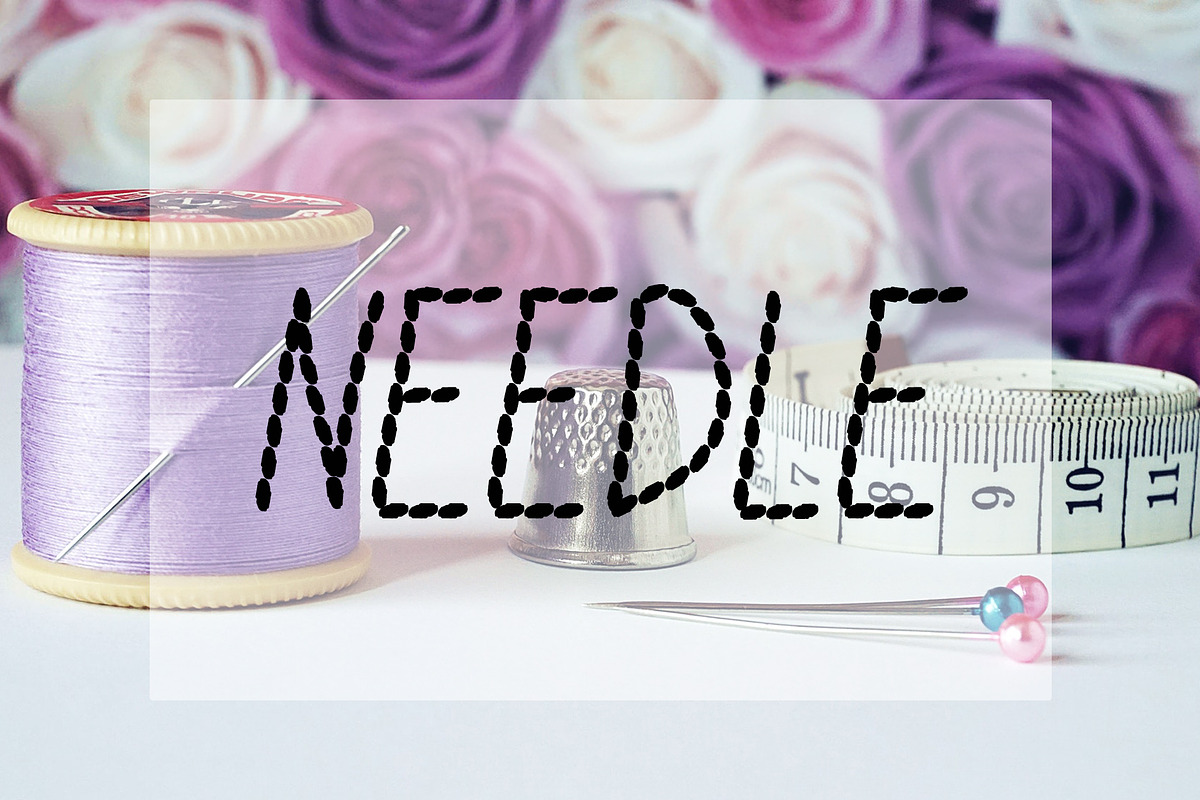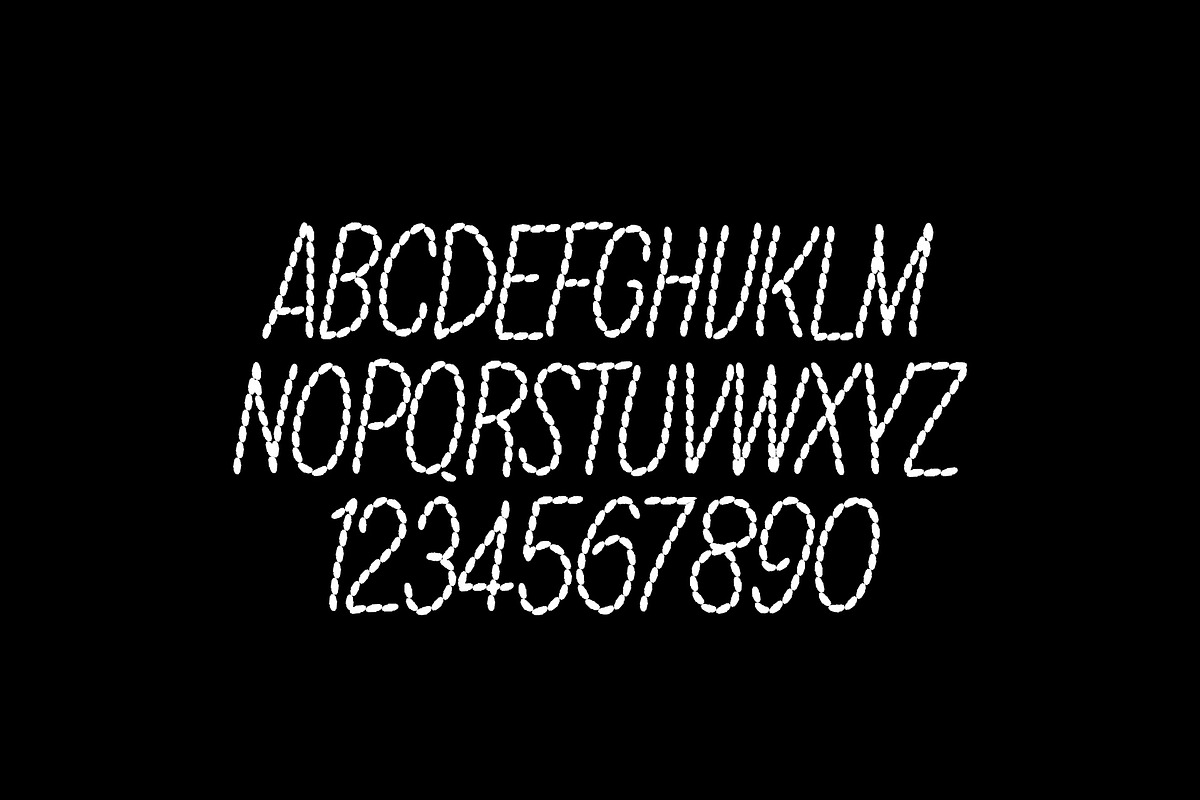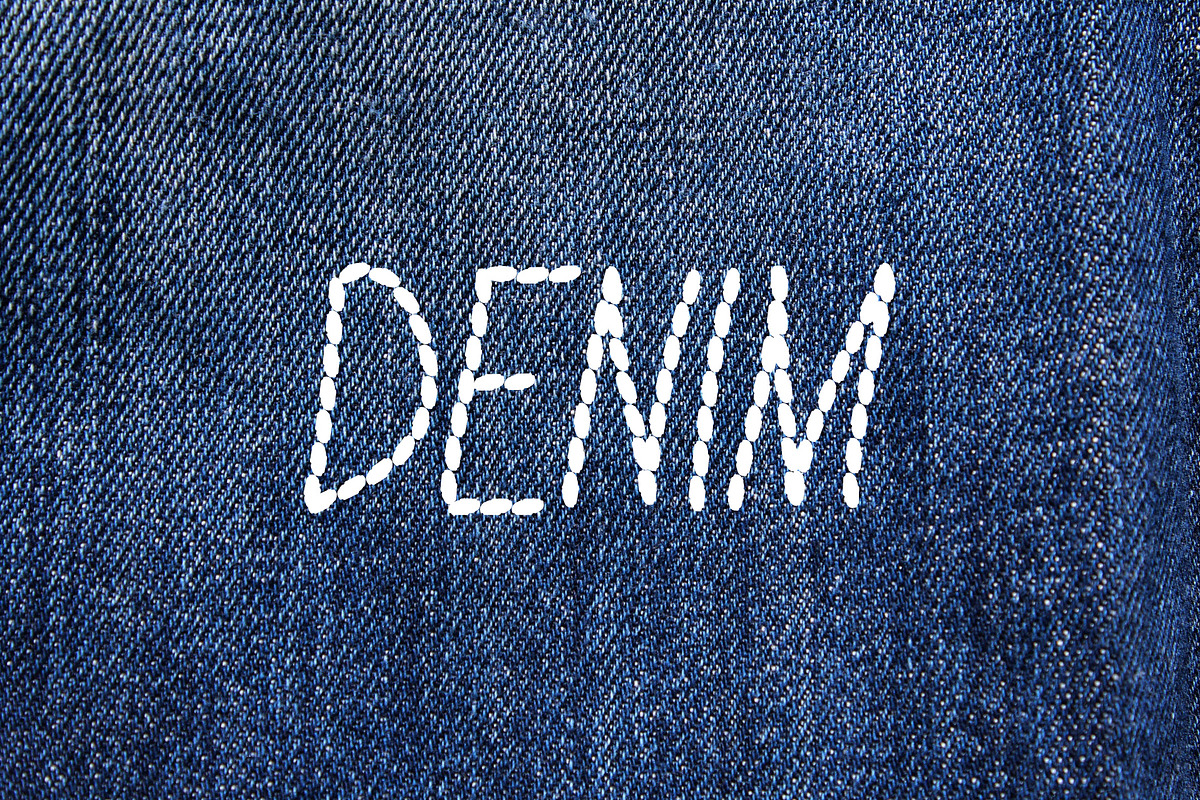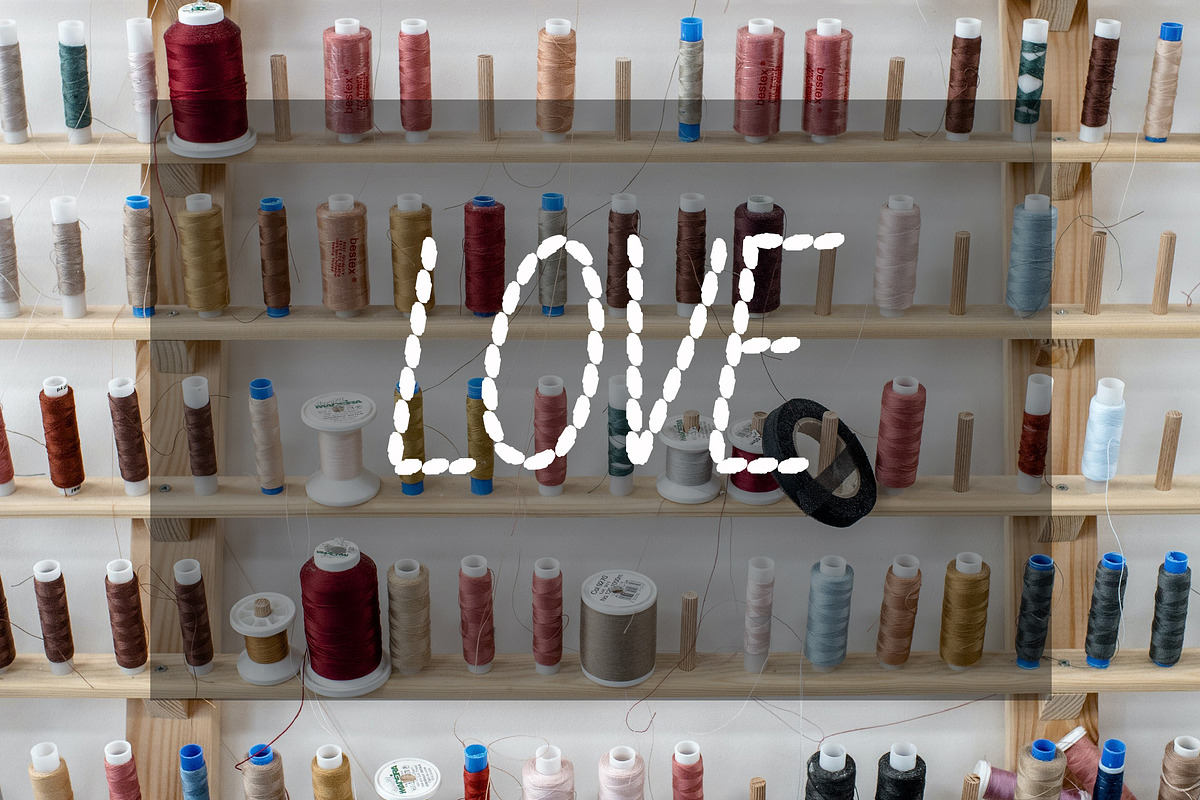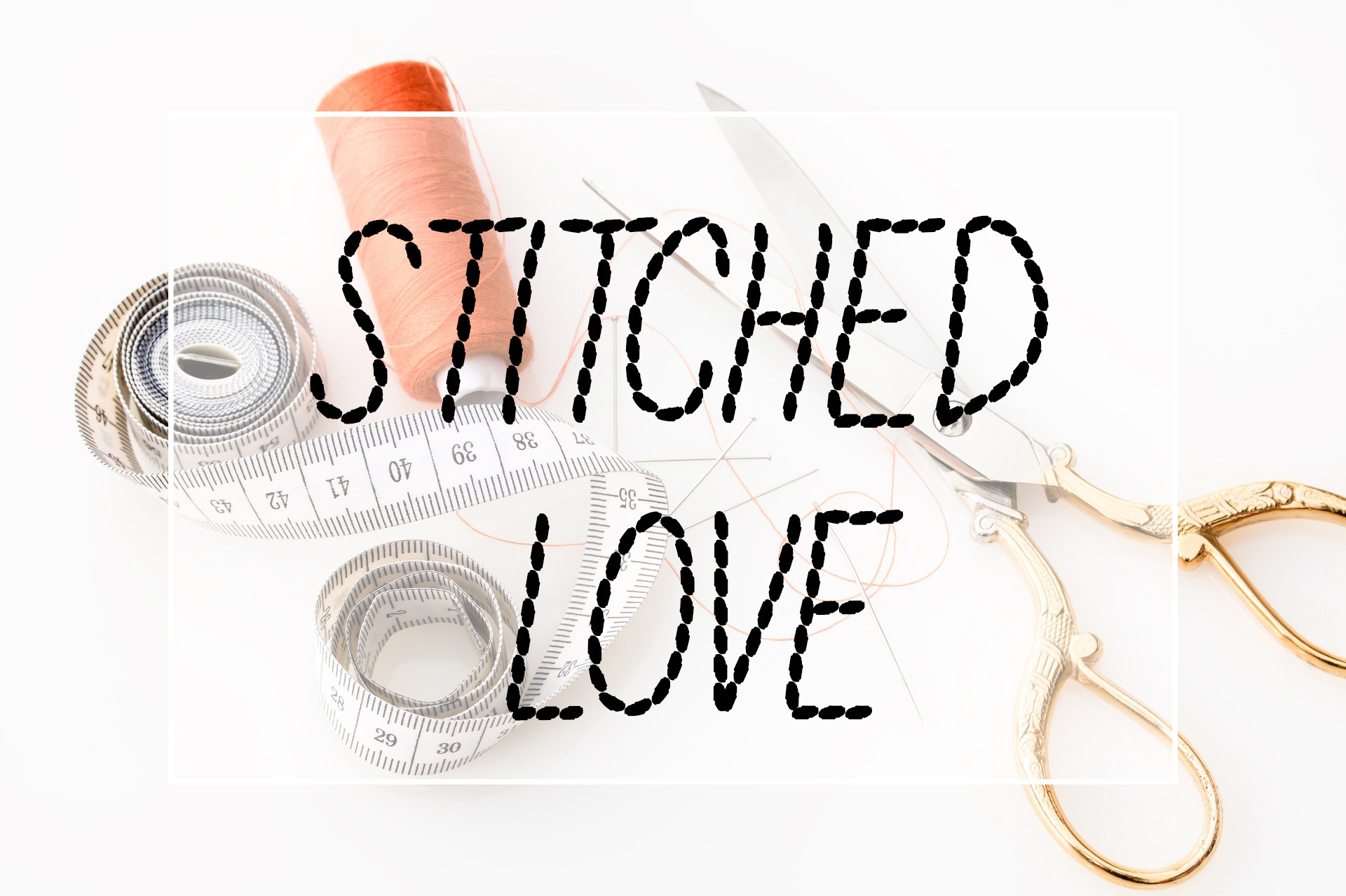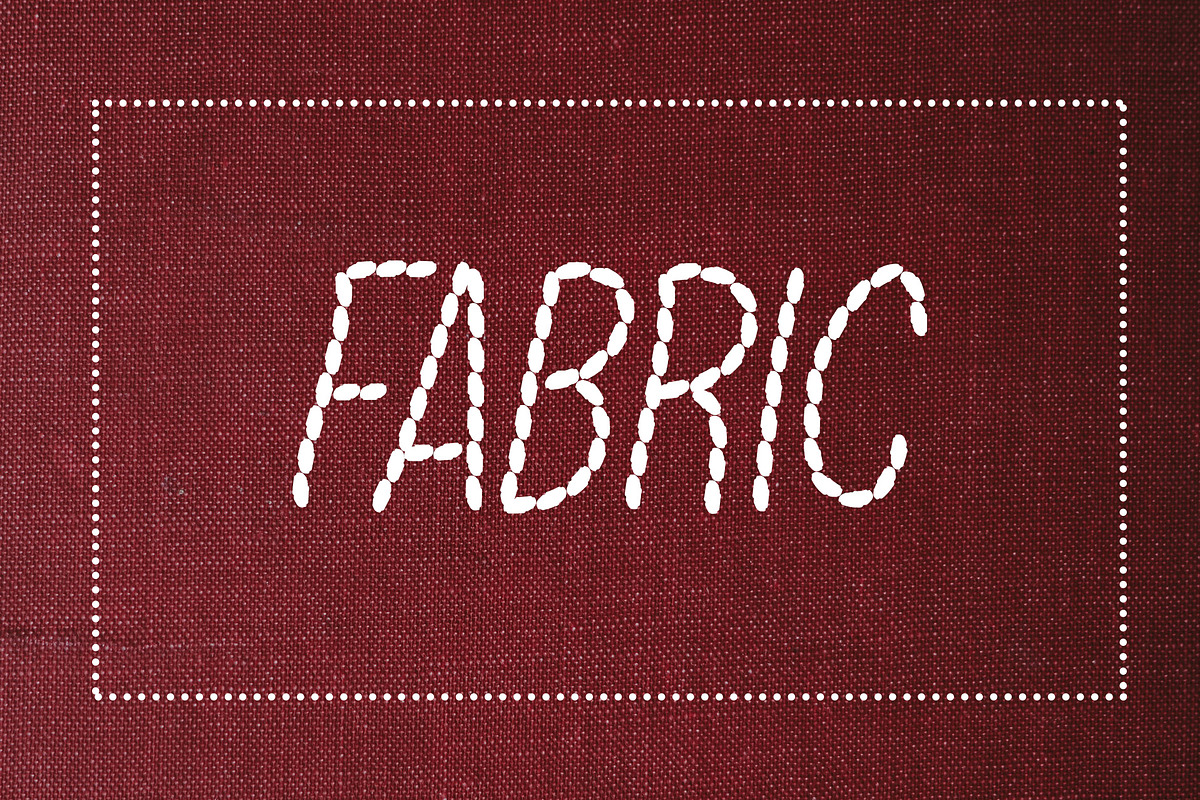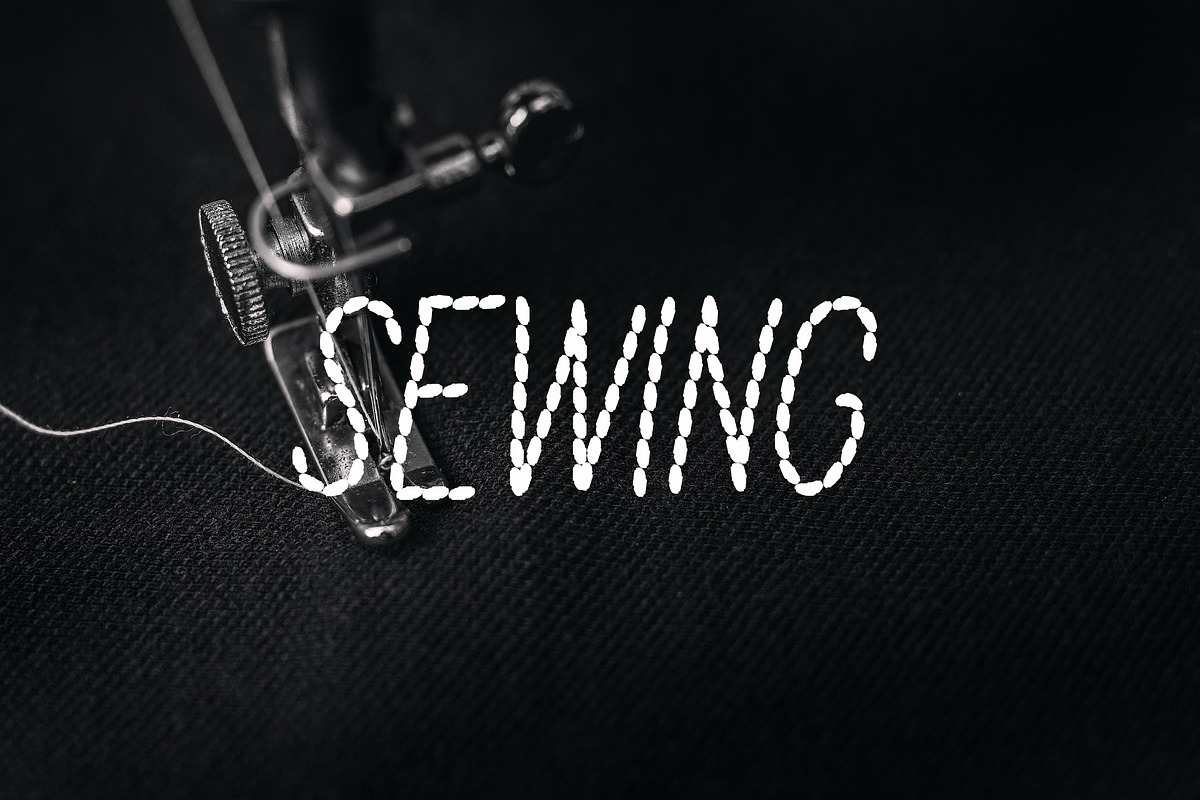
Stitched Love Font
Stitched Love is cute and adorable display cursive font.
Perfect for embroidery and sewing crafts.
Great for posters, embroidery craft, invitations, art and crafts, T-Shirts and more.